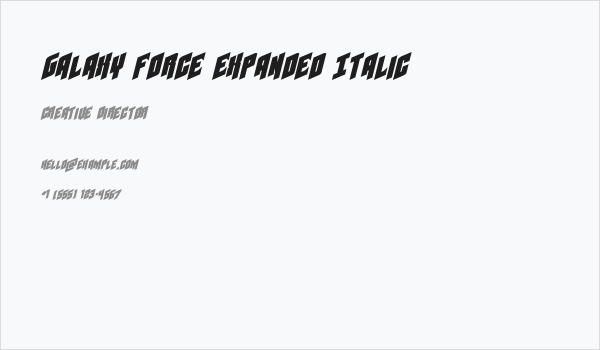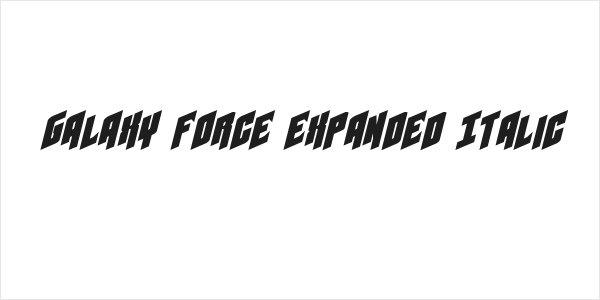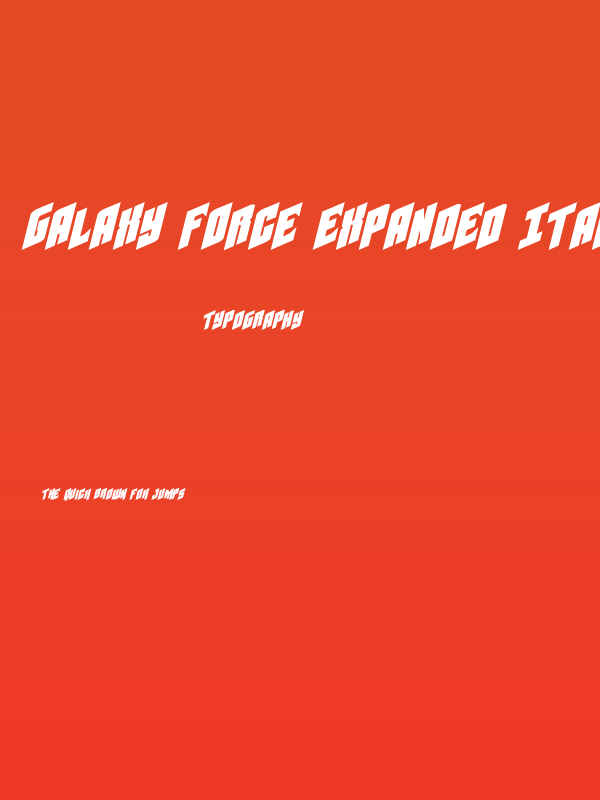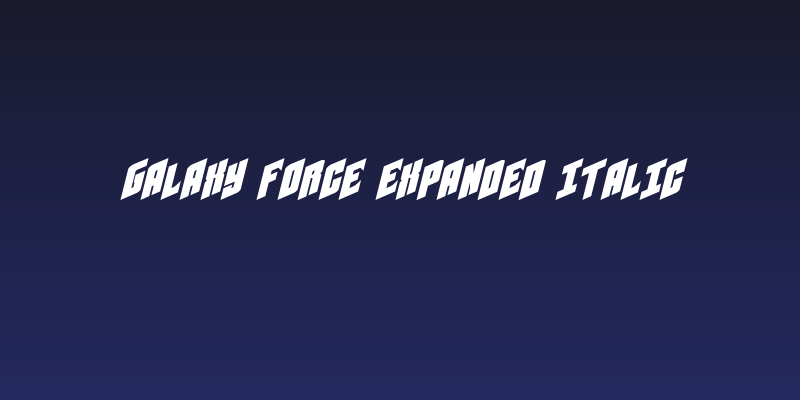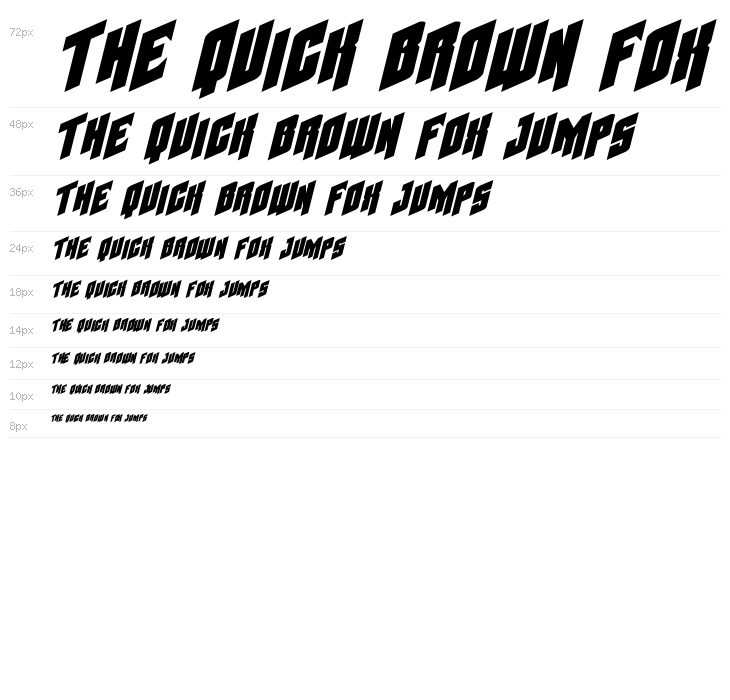
Galaxy Force Expanded Italic Font
Galaxy Force Expanded Italic Description
This font features a bold, dynamic style with a futuristic and aggressive appearance. The characters are sharply angled and italicized, giving a sense of motion and energy. The expanded width enhances its boldness, making it stand out prominently. The uppercase and lowercase letters maintain a consistent design, with sharp edges and a slightly condensed form. Numbers and special characters follow the same stylistic approach, ensuring uniformity across all glyphs. This font is ideal for projects that require a strong, impactful visual presence.
| Overall Style | Futuristic, Dynamic |
| Proposed Projects | Ideal for sci-fi themed designs, video game titles, movie posters, and branding that requires a strong, energetic look. |